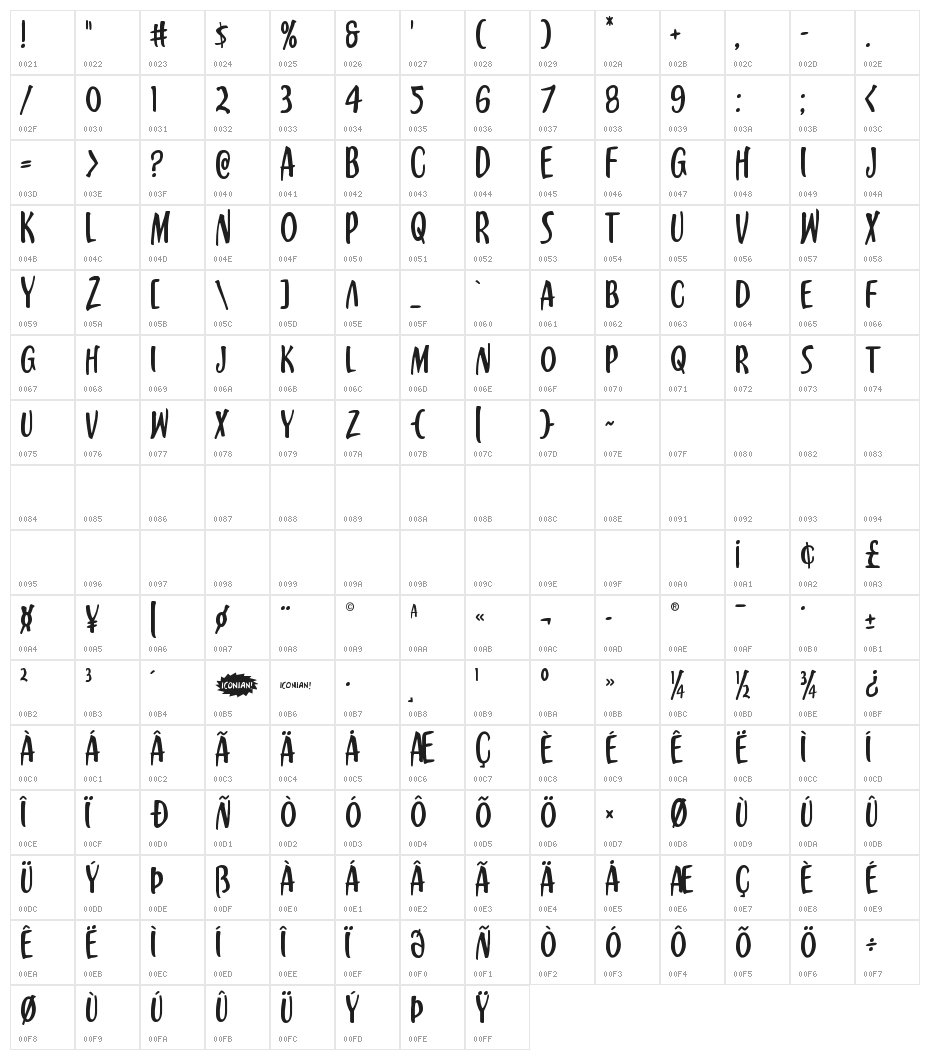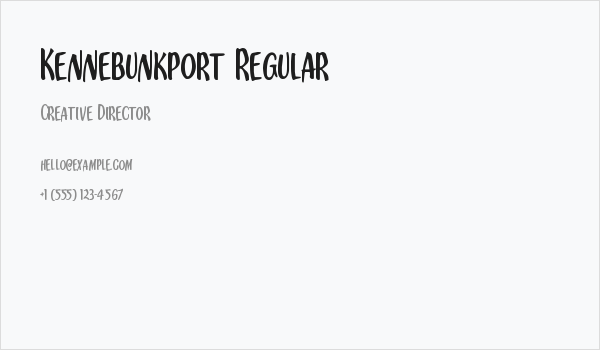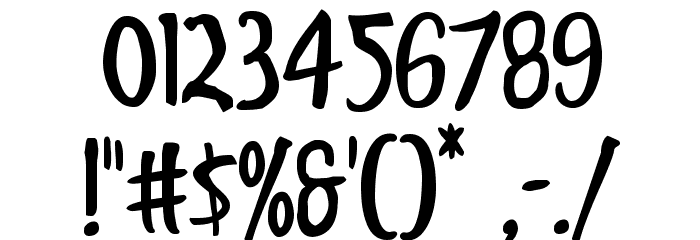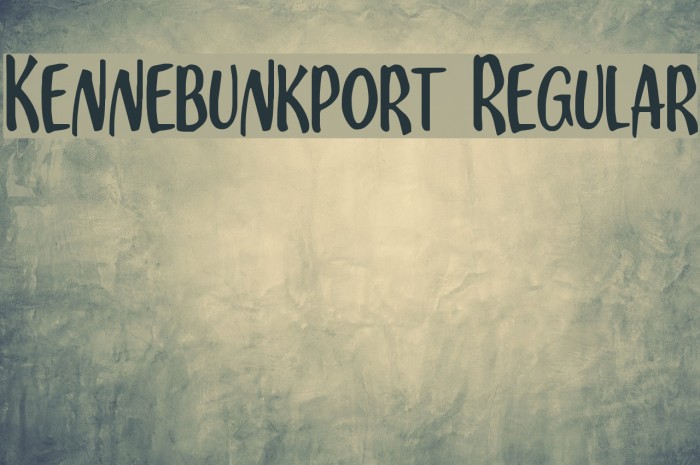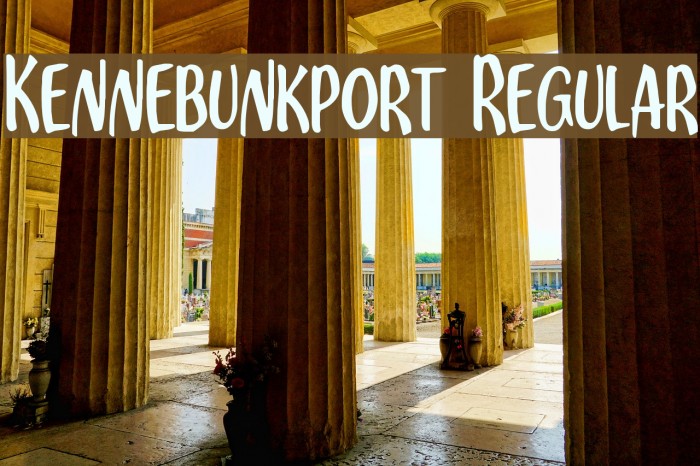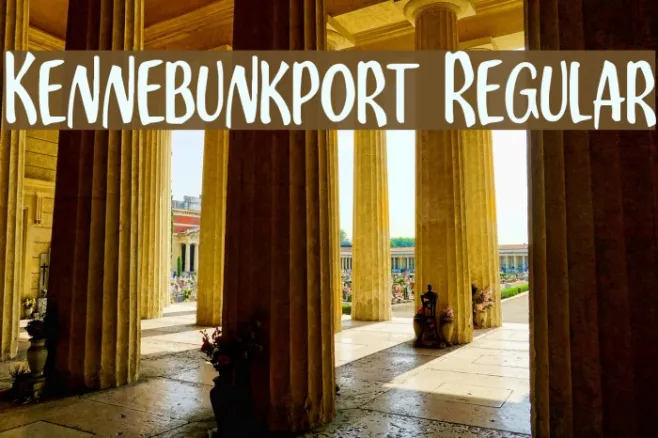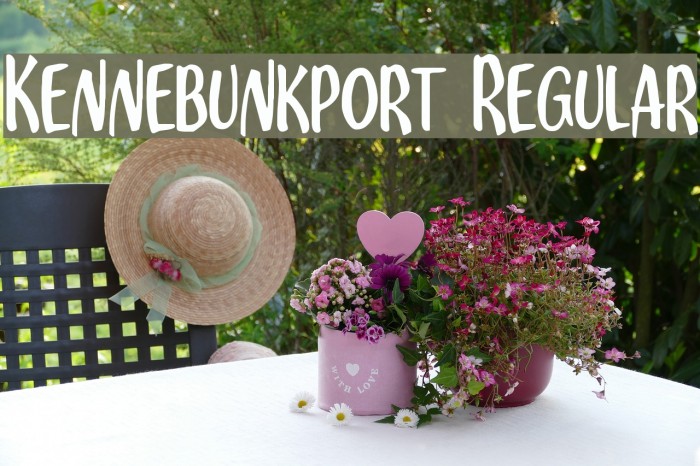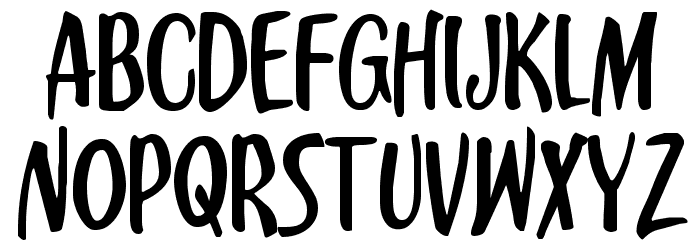
Kennebunkport Regular Font
Kennebunkport Regular Description
This font features a playful and bold handwritten style, characterized by its tall, slightly irregular letterforms that convey a sense of casual elegance. The uppercase and lowercase letters maintain a consistent flow, with rounded edges and a slight slant that adds to its informal charm. The numerals and special characters are crafted with the same attention to detail, ensuring a cohesive look across all glyphs. The font's unique personality makes it suitable for projects that require a touch of whimsy and creativity, while still maintaining readability.
| Proposed Projects | Ideal for greeting cards, children's books, playful branding, and creative posters. |